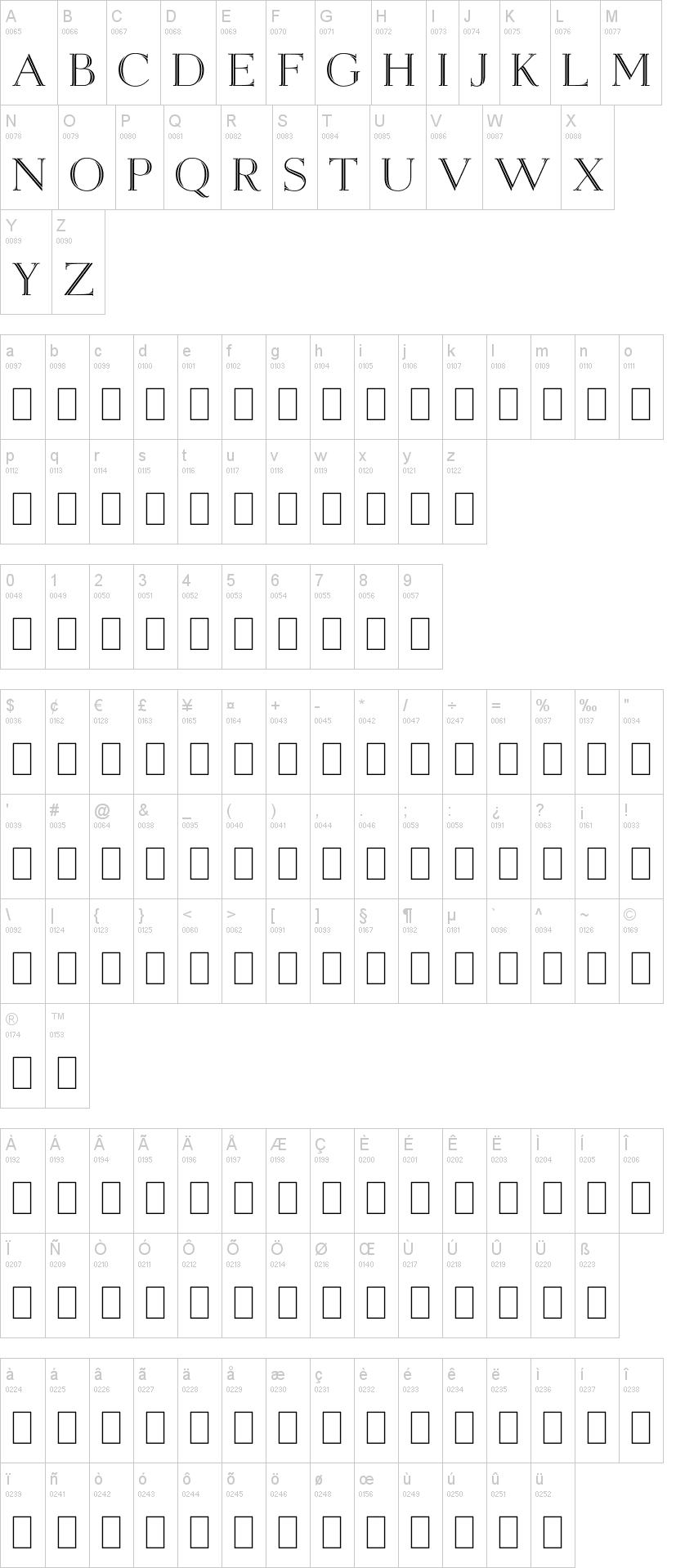
Open Kapitalen Font
Open Kapitalen Font - In 2013, john wollring (koeiekat) made a digital interpretation “[b]ased on a 1935 specimen. This demo version only has the capital letters a to z. Web download free for personal use only. Web open kapitalen in use. A set of open caps (latin and greek), designed by jan van krimpen for enschedé in 1929. This demo version only has the capital letters a to z. Web open egmont kapitalen in use. No alternates, no accents, no.
Web download free for personal use only. This demo version only has the capital letters a to z. Web open egmont kapitalen in use. Web open kapitalen in use. This demo version only has the capital letters a to z. A set of open caps (latin and greek), designed by jan van krimpen for enschedé in 1929. No alternates, no accents, no. In 2013, john wollring (koeiekat) made a digital interpretation “[b]ased on a 1935 specimen.
Web open kapitalen in use. In 2013, john wollring (koeiekat) made a digital interpretation “[b]ased on a 1935 specimen. Web open egmont kapitalen in use. No alternates, no accents, no. This demo version only has the capital letters a to z. A set of open caps (latin and greek), designed by jan van krimpen for enschedé in 1929. Web download free for personal use only.
Free font "Open Egmont Kapitalen" by koeiekat
No alternates, no accents, no. This demo version only has the capital letters a to z. Web open egmont kapitalen in use. In 2013, john wollring (koeiekat) made a digital interpretation “[b]ased on a 1935 specimen.
Open Egmont Kapitalen Font
This demo version only has the capital letters a to z. No alternates, no accents, no. Web download free for personal use only. Web open egmont kapitalen in use.
Web open egmont kapitalen in use. Web open kapitalen in use. This demo version only has the capital letters a to z. A set of open caps (latin and greek), designed by jan van krimpen for enschedé in 1929. Web download free for personal use only.
In 2013, john wollring (koeiekat) made a digital interpretation “[b]ased on a 1935 specimen. Web open egmont kapitalen in use. Web open kapitalen in use. This demo version only has the capital letters a to z. A set of open caps (latin and greek), designed by jan van krimpen for enschedé in 1929.
Open Egmont Kapitalen (DEMO) uppercase
Web download free for personal use only. Web open kapitalen in use. No alternates, no accents, no. Web open egmont kapitalen in use. This demo version only has the capital letters a to z.
A set of open caps (latin and greek), designed by jan van krimpen for enschedé in 1929. This demo version only has the capital letters a to z. Web download free for personal use only. In 2013, john wollring (koeiekat) made a digital interpretation “[b]ased on a 1935 specimen. No alternates, no accents, no.
A set of open caps (latin and greek), designed by jan van krimpen for enschedé in 1929. No alternates, no accents, no. This demo version only has the capital letters a to z. Web download free for personal use only.
Web download free for personal use only. No alternates, no accents, no. Web open egmont kapitalen in use. This demo version only has the capital letters a to z. Web open kapitalen in use.
Open Egmont Kapitalen Font Free Download
Web open kapitalen in use. This demo version only has the capital letters a to z. In 2013, john wollring (koeiekat) made a digital interpretation “[b]ased on a 1935 specimen. No alternates, no accents, no. Web open egmont kapitalen in use.
Open Egmont Kapitalen (DEMO) font
This demo version only has the capital letters a to z. No alternates, no accents, no. In 2013, john wollring (koeiekat) made a digital interpretation “[b]ased on a 1935 specimen. A set of open caps (latin and greek), designed by jan van krimpen for enschedé in 1929. This demo version only has the capital letters a to z.
A Set Of Open Caps (Latin And Greek), Designed By Jan Van Krimpen For Enschedé In 1929.
This demo version only has the capital letters a to z. No alternates, no accents, no. This demo version only has the capital letters a to z. Web open egmont kapitalen in use.
In 2013, John Wollring (Koeiekat) Made A Digital Interpretation “[B]Ased On A 1935 Specimen.